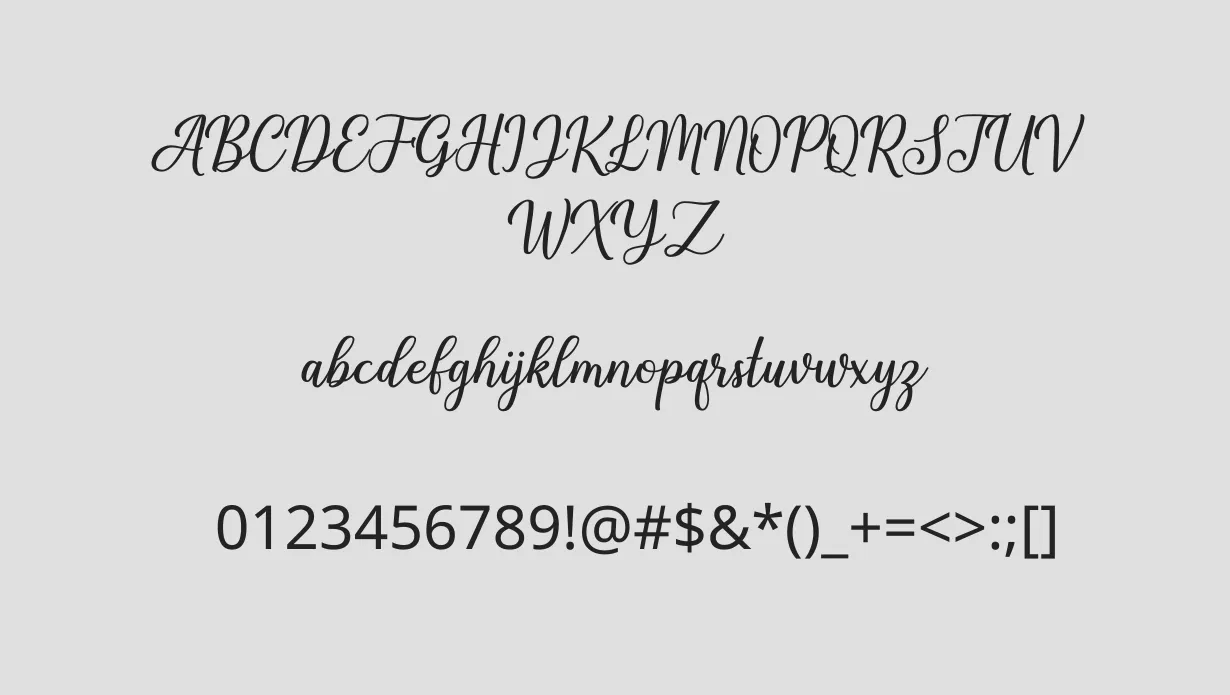
Shalinta Font Free Download
Shalinta Calligraphy Font is a calligraphic typeface. It is similar to argopuro font a beautiful calligraphy font with some alternate characters that make a lovely design look.
It comes with 359 glyphs included standard characters, multilingual support, ligatures, and alternates that can be used to make your design more beautiful.
Style Of Shalinta Font